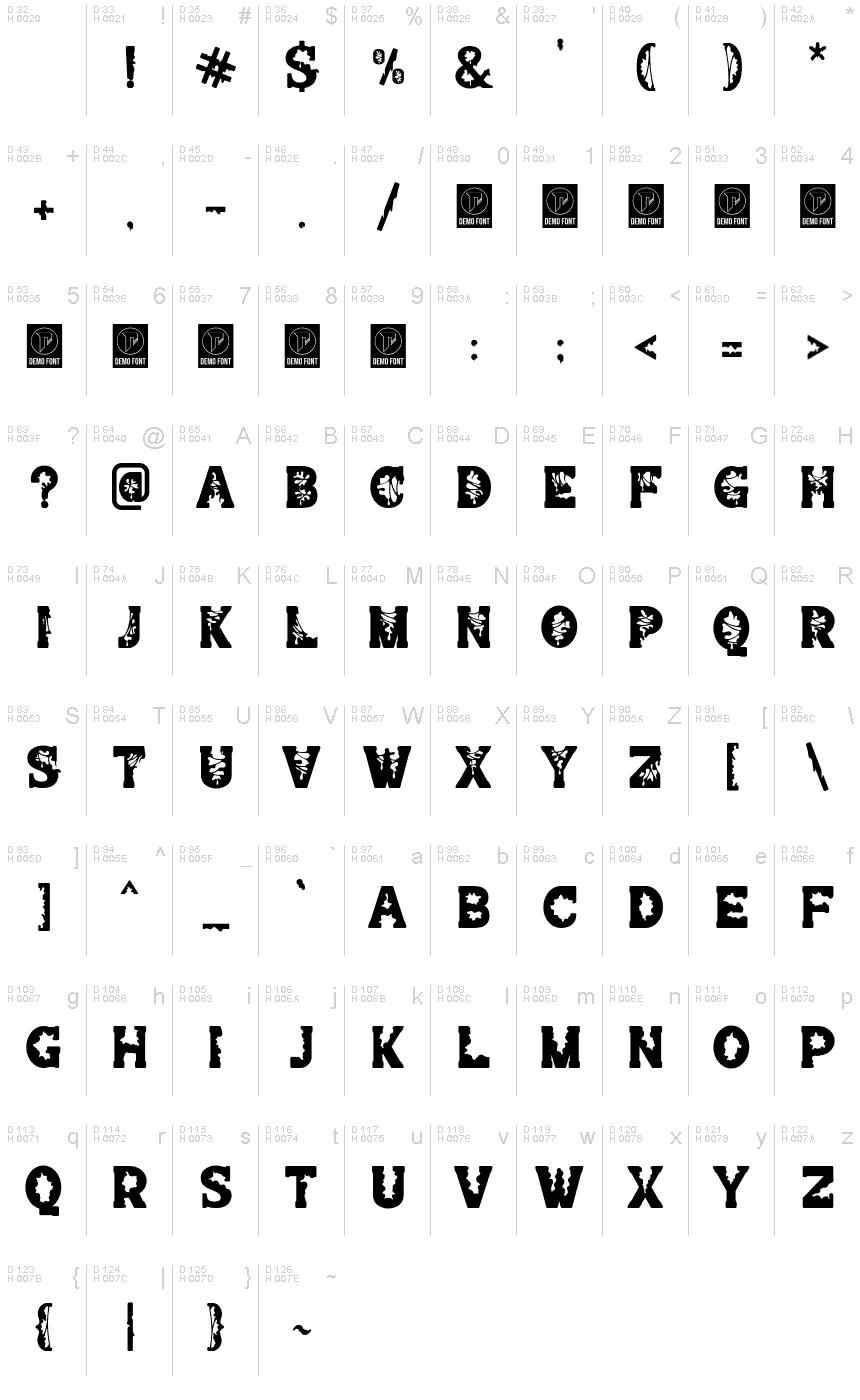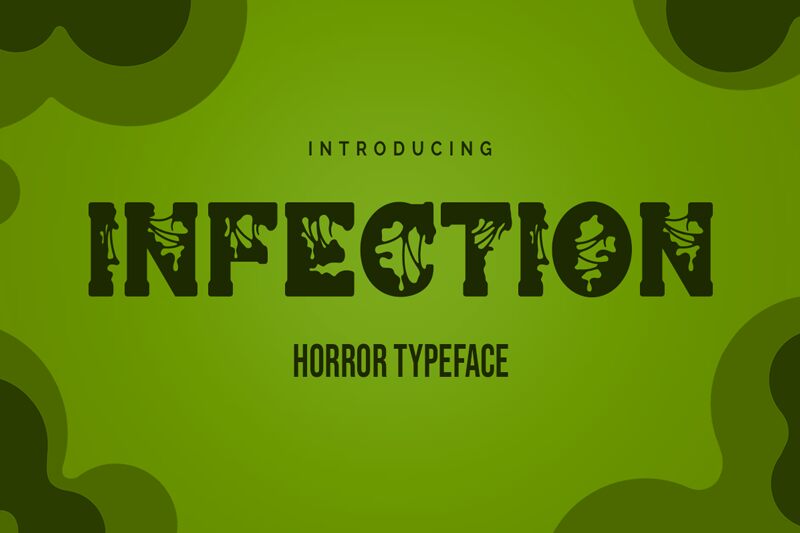
INFECTION
INFECTION, designed by Ronin Design, is a bold and wide display font that will give your projects a unique, scary feel. Perfect for horror designs or Halloween themes, INFECTION can also be used to give any project an edge and make it stand out from the crowd. From dark posters to creepy logos, this font is sure to capture attention and provoke emotions. Unleash the power of INFECTION and add a hint of fear to your next project!